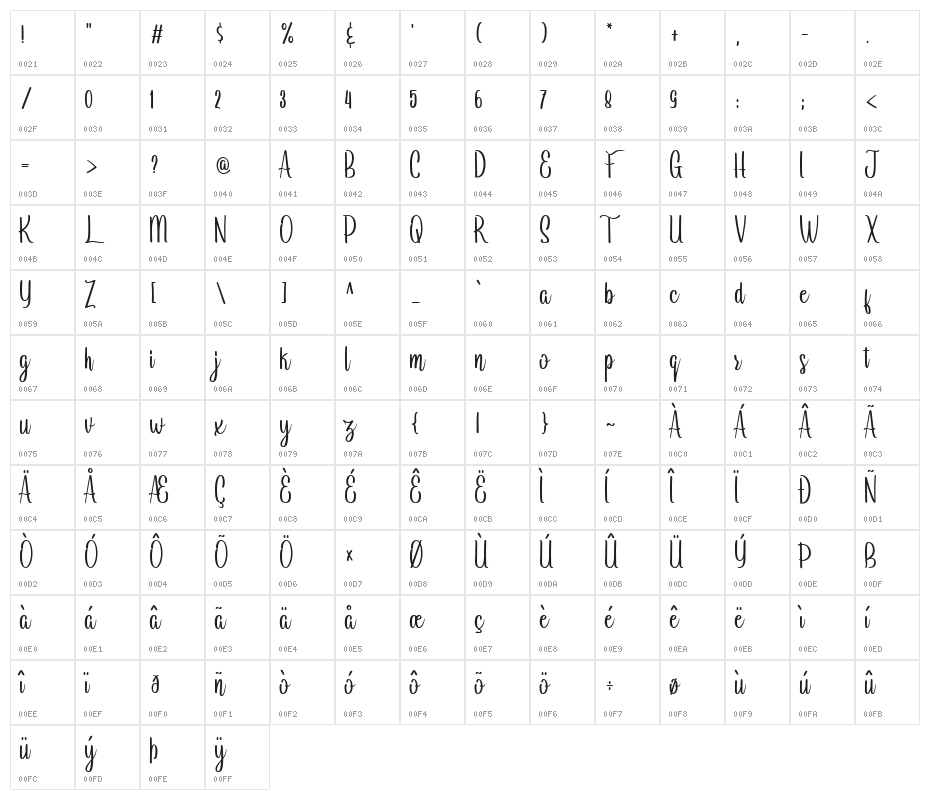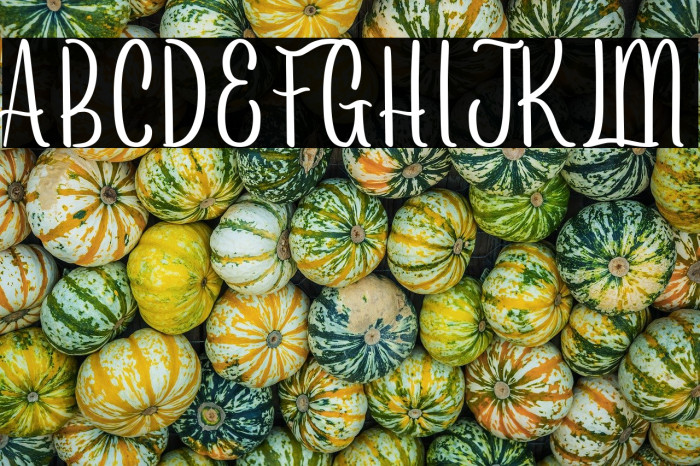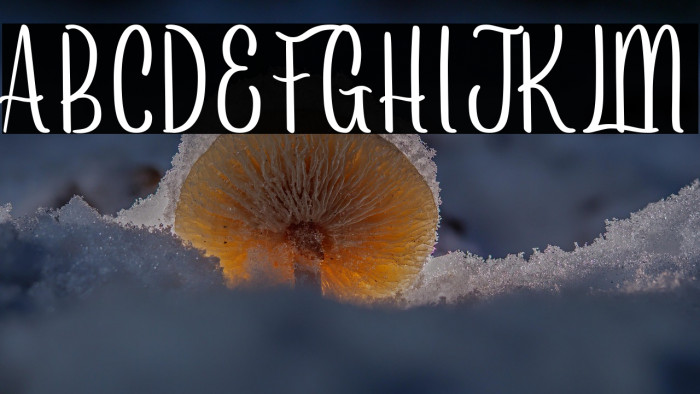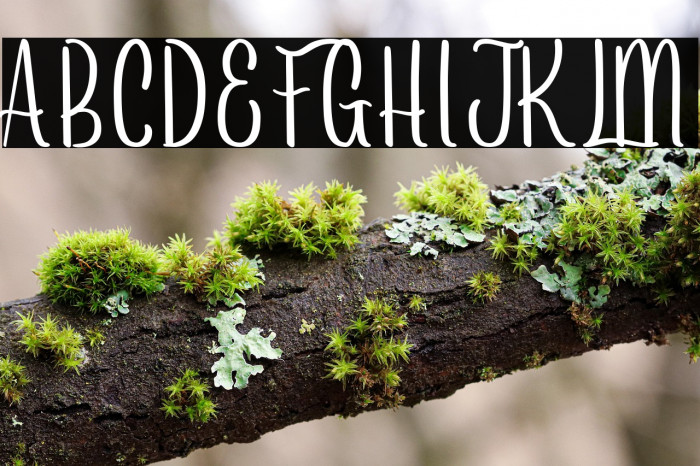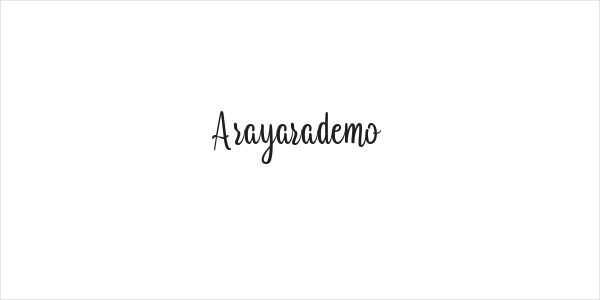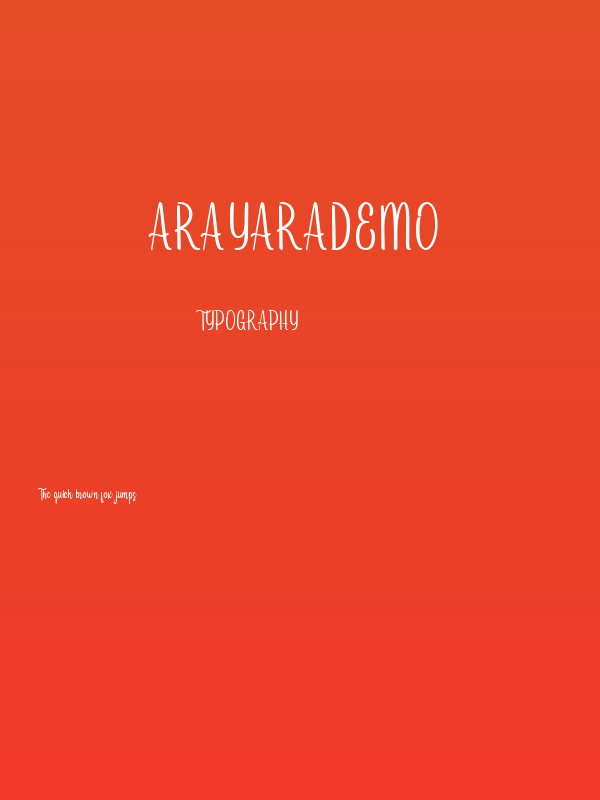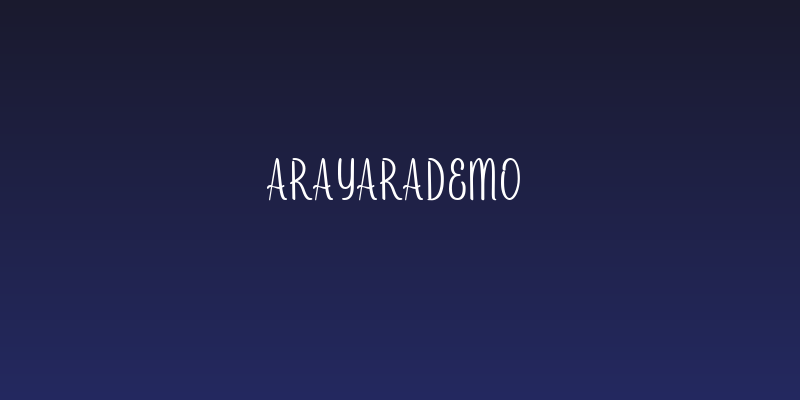
Arayarademo Font
Arayarademo Description
This font features a playful and whimsical style with a handwritten appearance. The uppercase letters are tall and slightly narrow, with a consistent stroke width that gives them a clean and modern look. The lowercase letters are more fluid and connected, adding a touch of elegance and charm. The numbers and special characters maintain the same playful aesthetic, making the font versatile for various design projects. The overall style is both approachable and stylish, suitable for creative and informal applications.
| Proposed Projects | Ideal for greeting cards, invitations, playful branding, and social media graphics. |